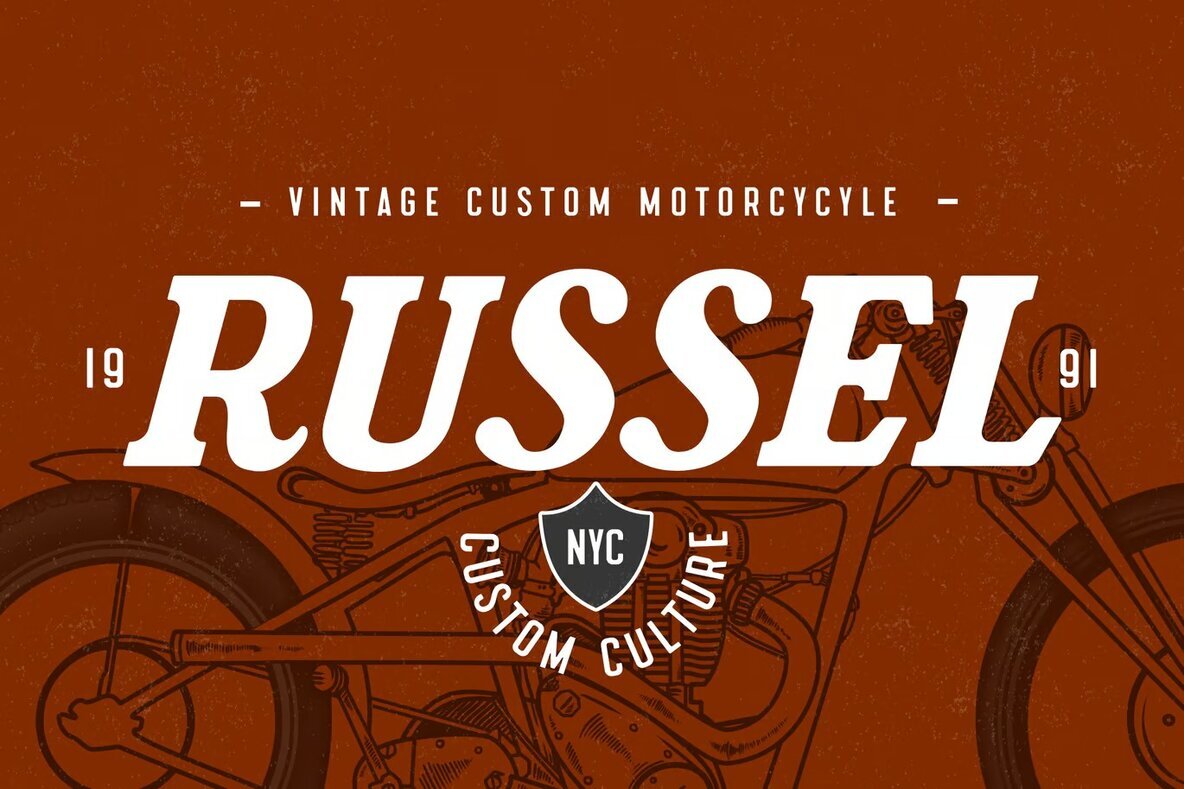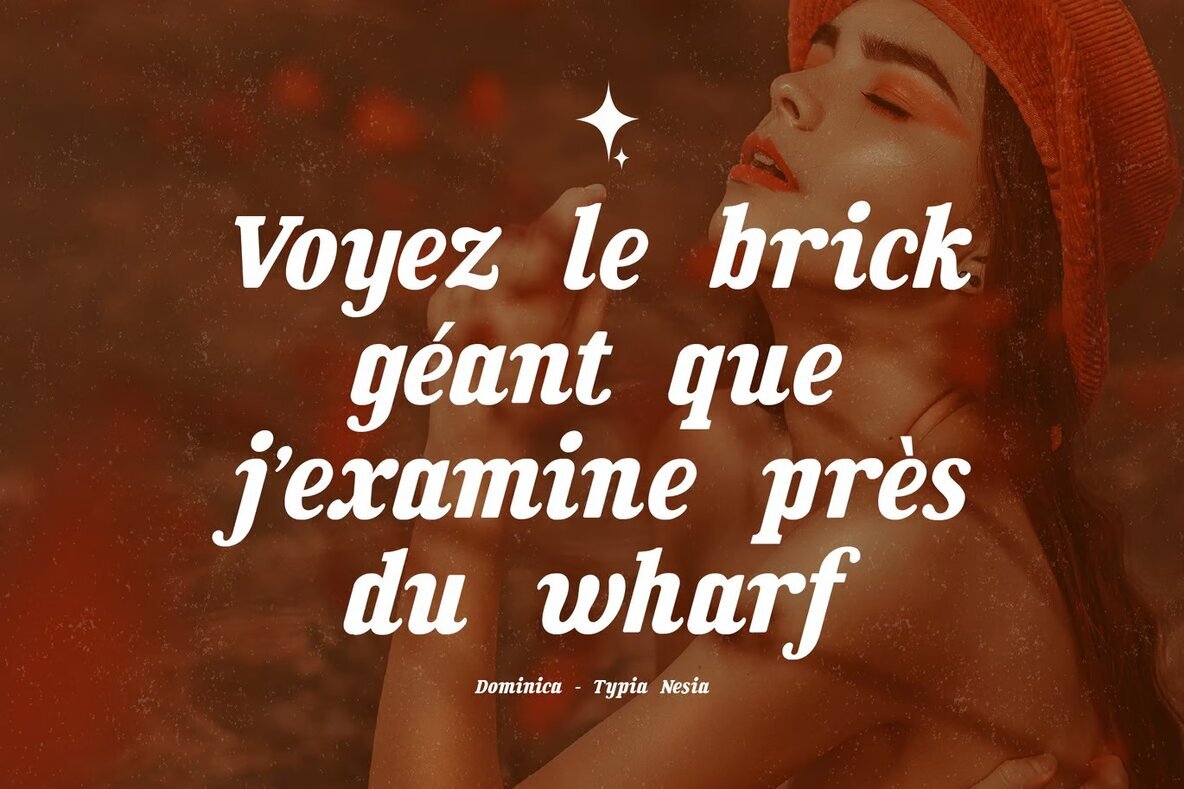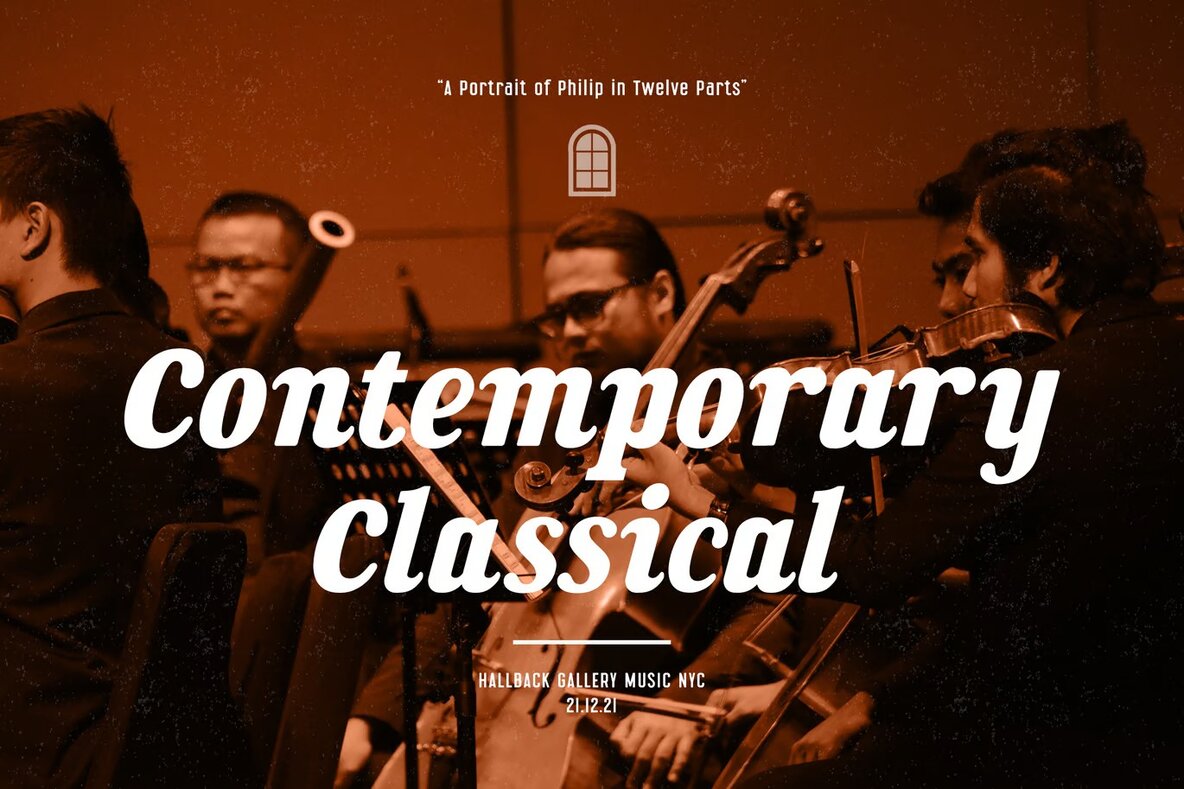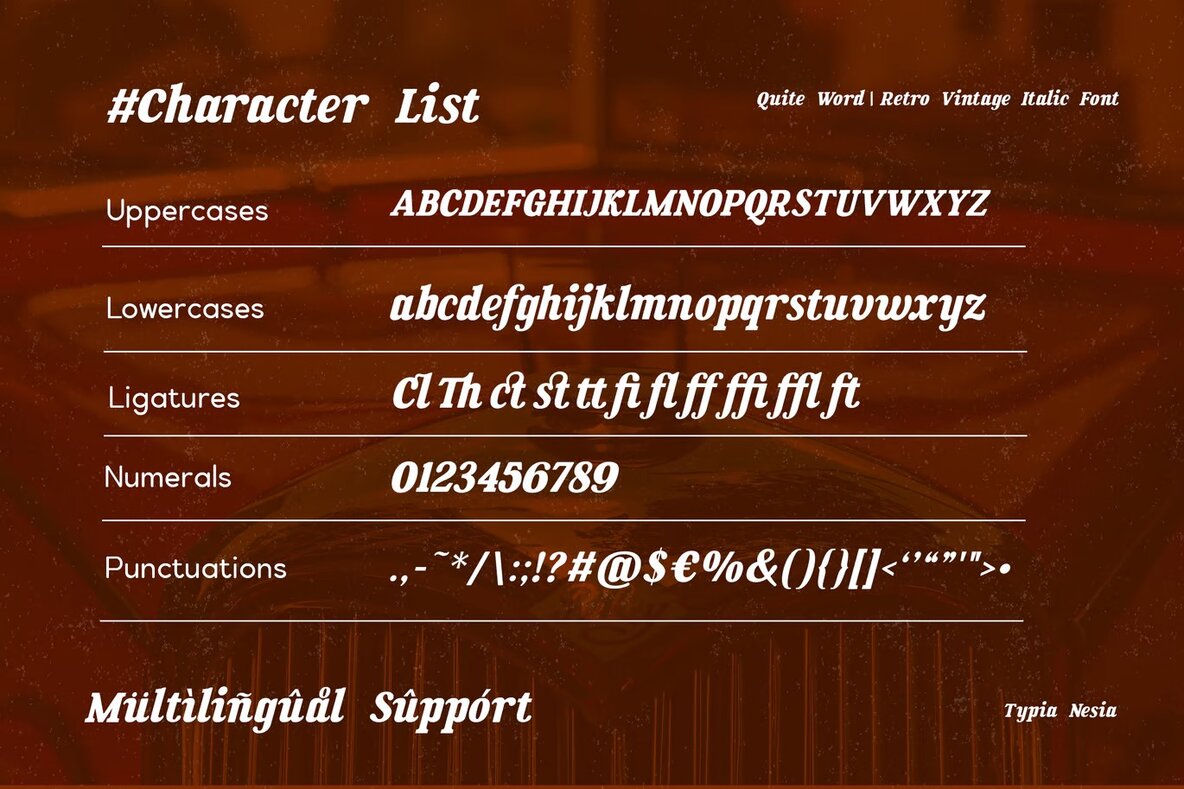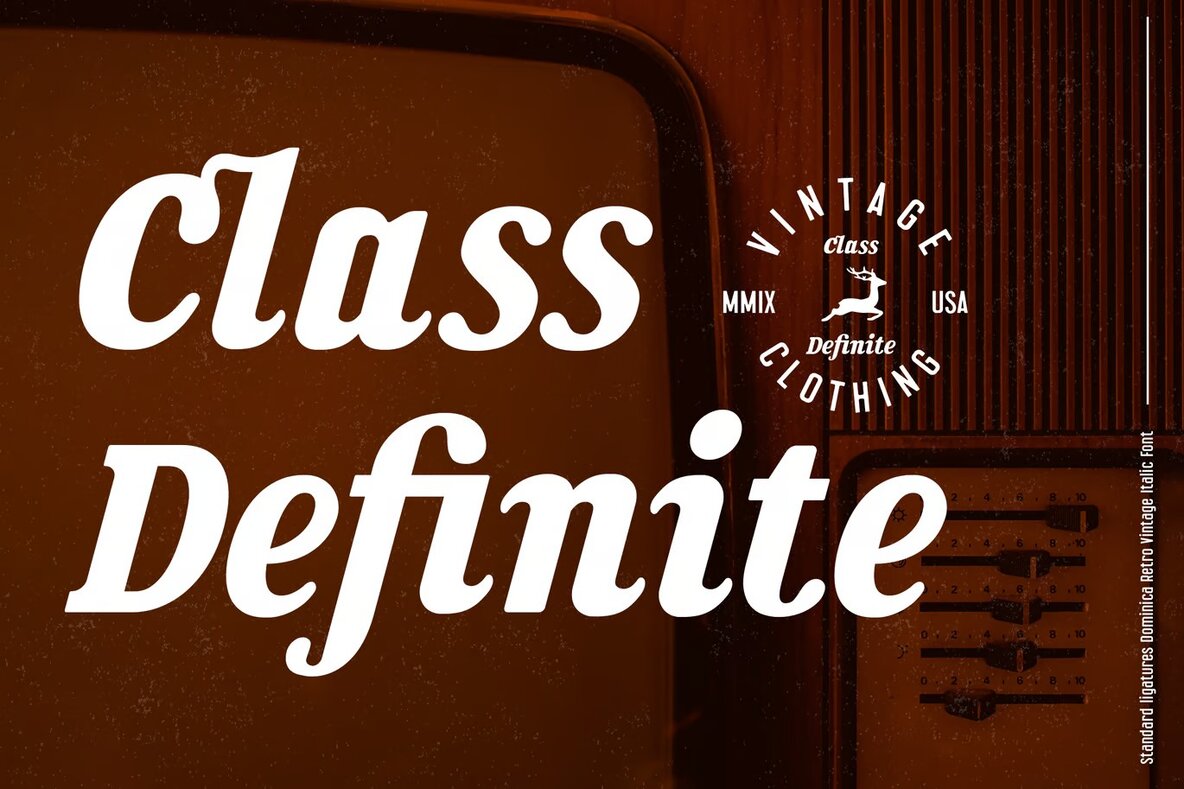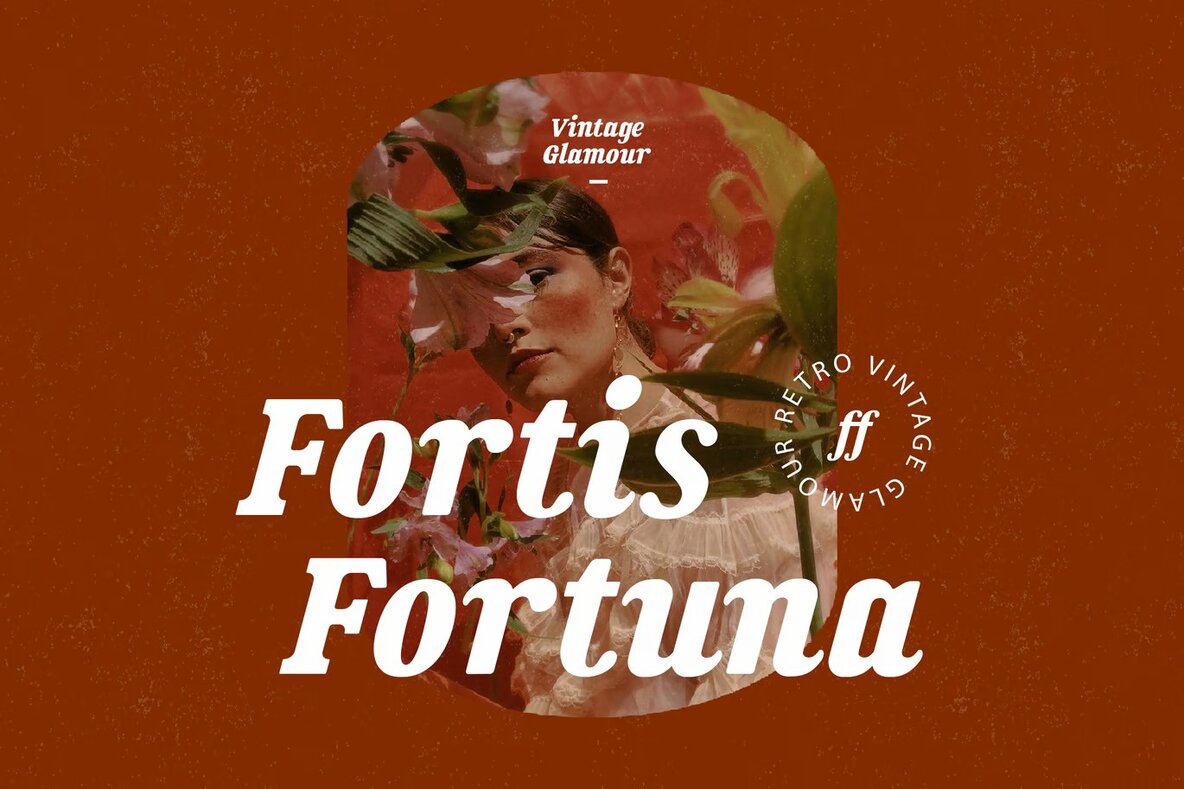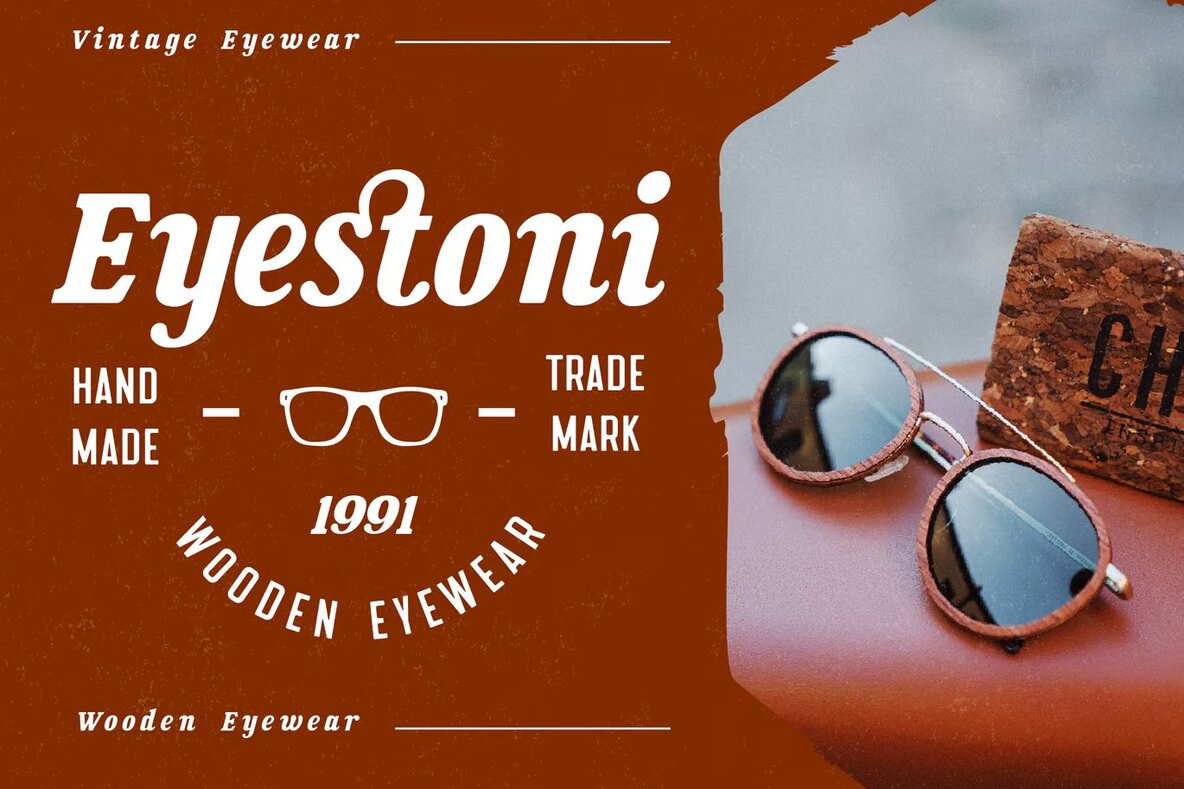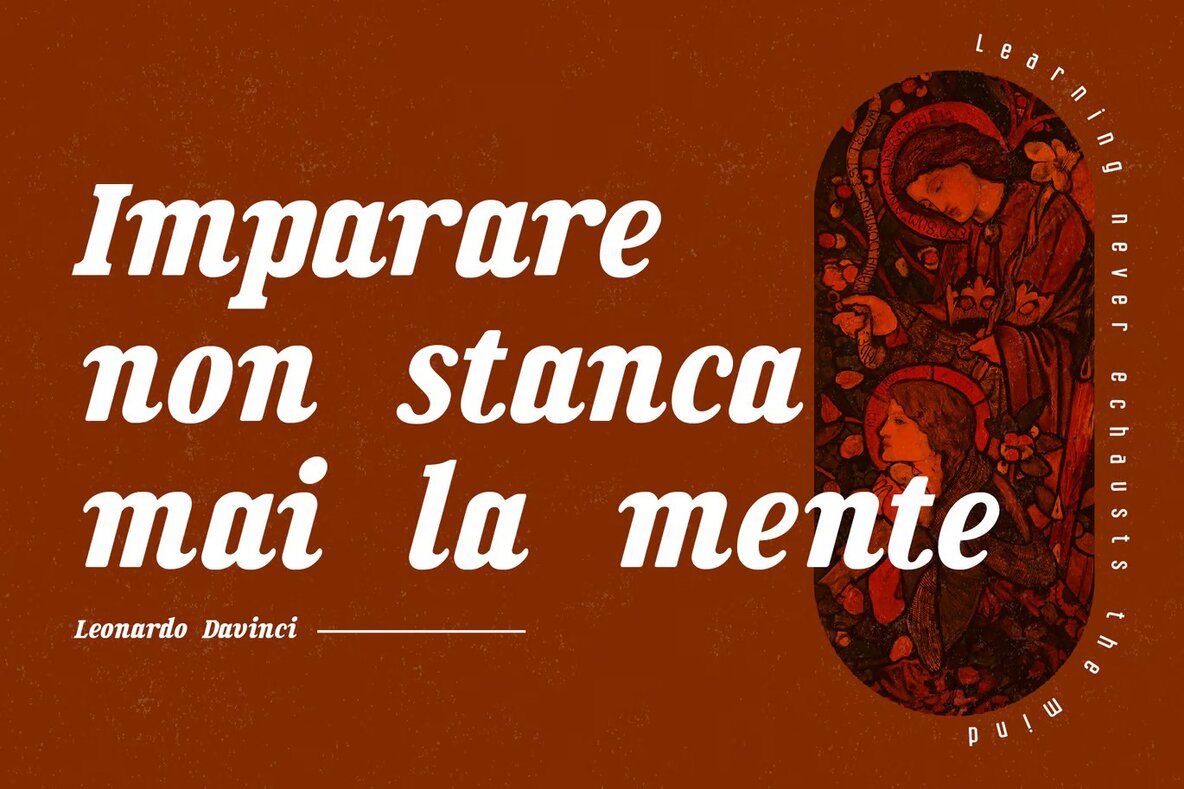
Dominica Font
Dominica Regular
Discover the bold flair of this retro vintage italic serif font, perfect for a wide range of design applications. Bold Italic Retro Vintage is crafted for those who seek a touch of nostalgia combined with a modern twist. Ideal for projects like logo creation, branding initiatives, and modern advertising designs, this font brings a unique character to your work. Whether you're designing for vintage garage themes or adventure and mountain hiking brands, it guarantees a standout presence.
This font is also a great choice for hardcore music projects, animations, and movie designs. Its versatility extends to retro summer poster quotes, book or novel cover titles, and editorial designs. It can enhance your website, blog, or any card design with its italic hand-lettered style. Embrace a font that offers a perfect blend of vintage charm and contemporary dynamism for all your creative endeavors.